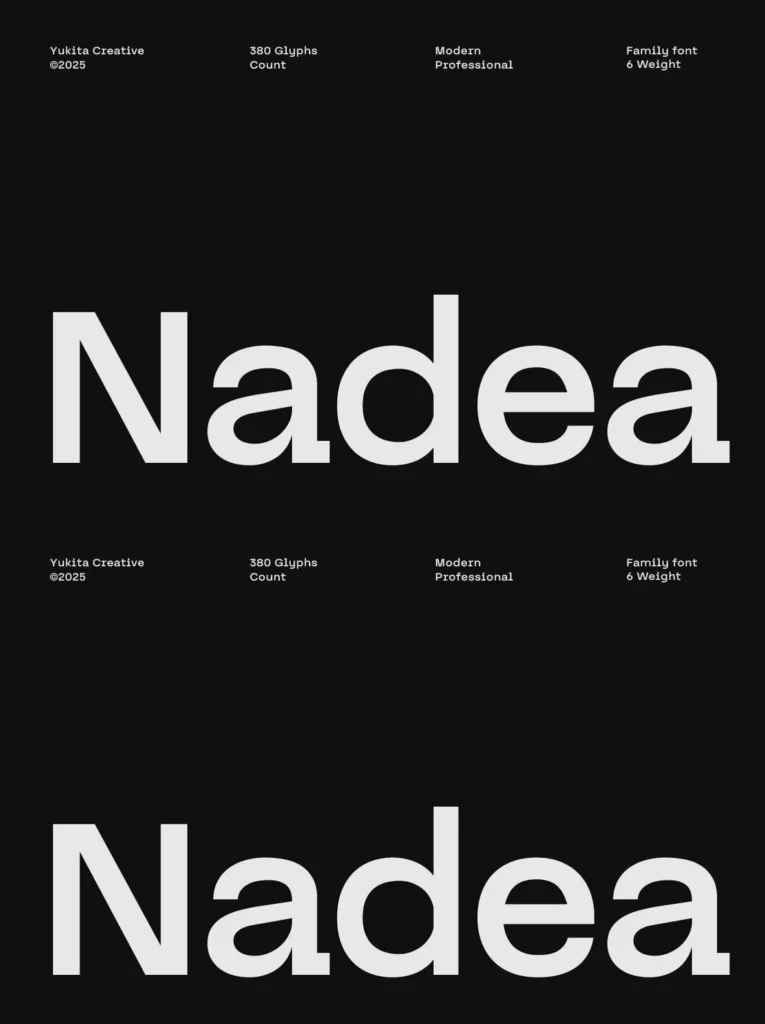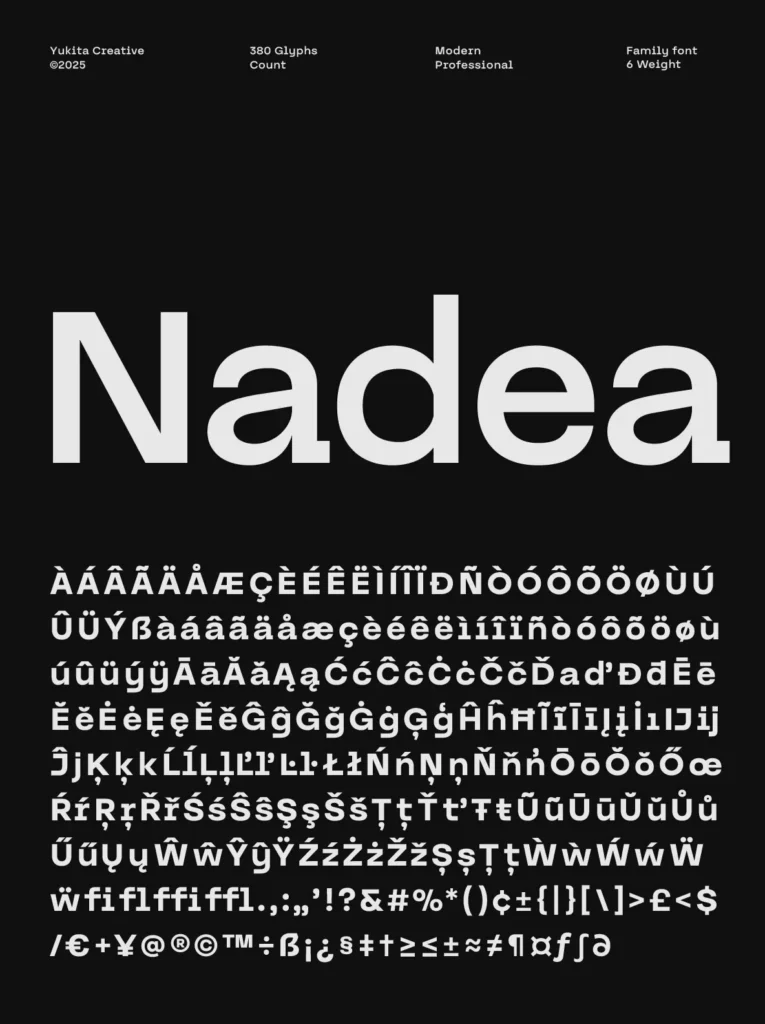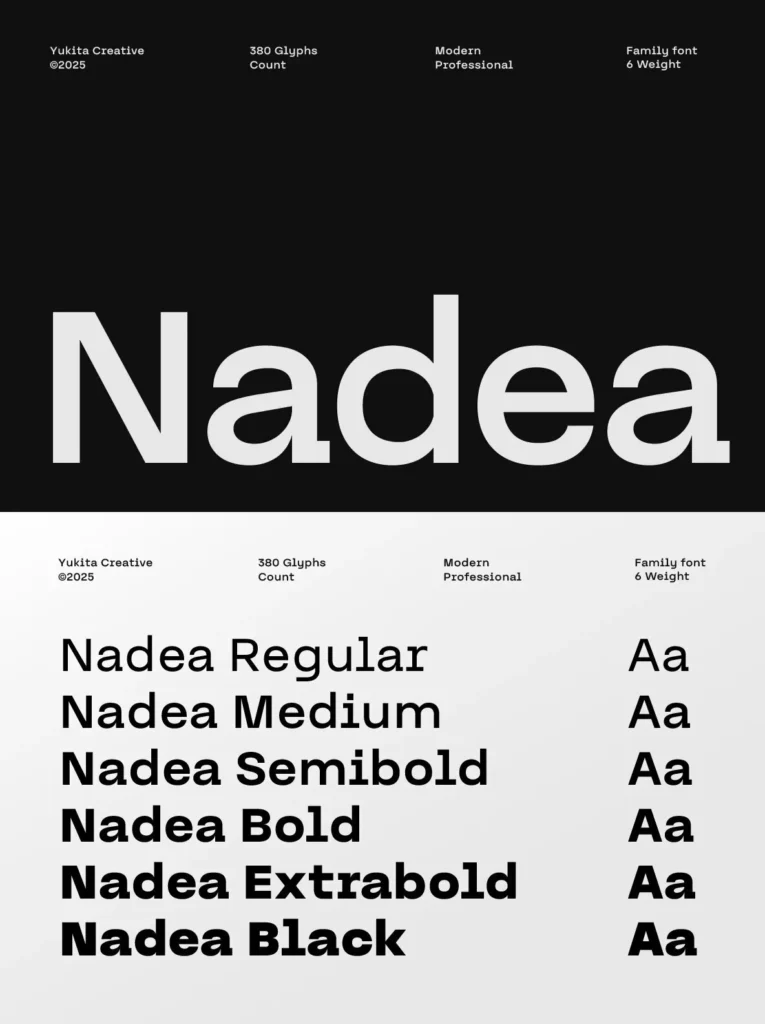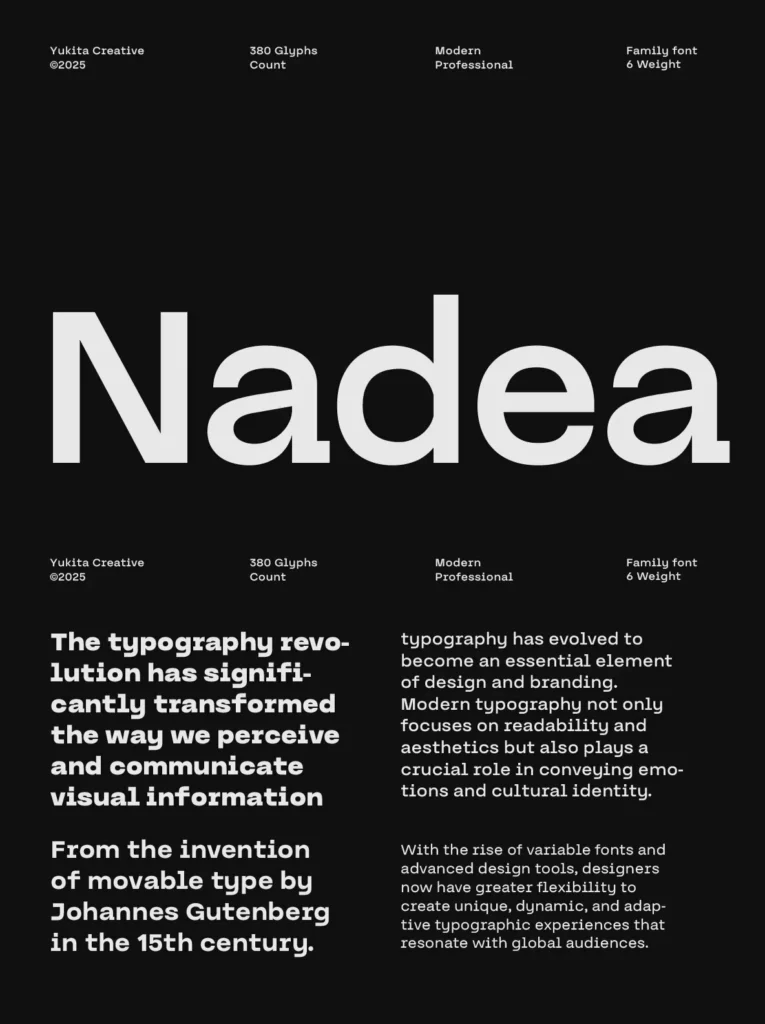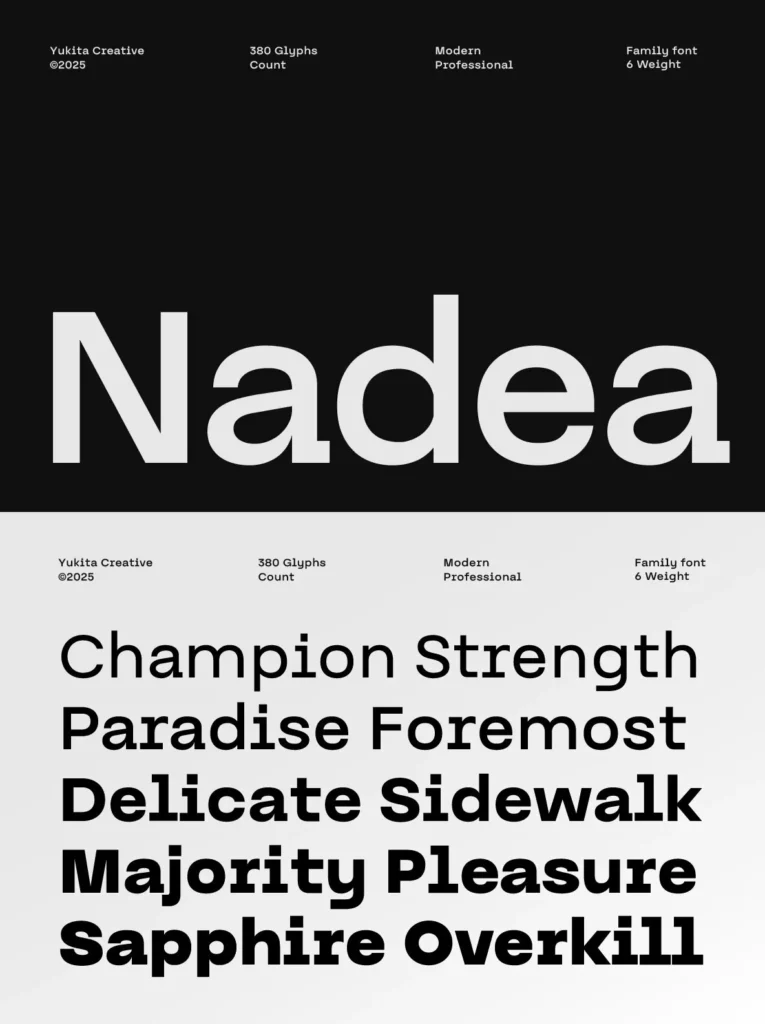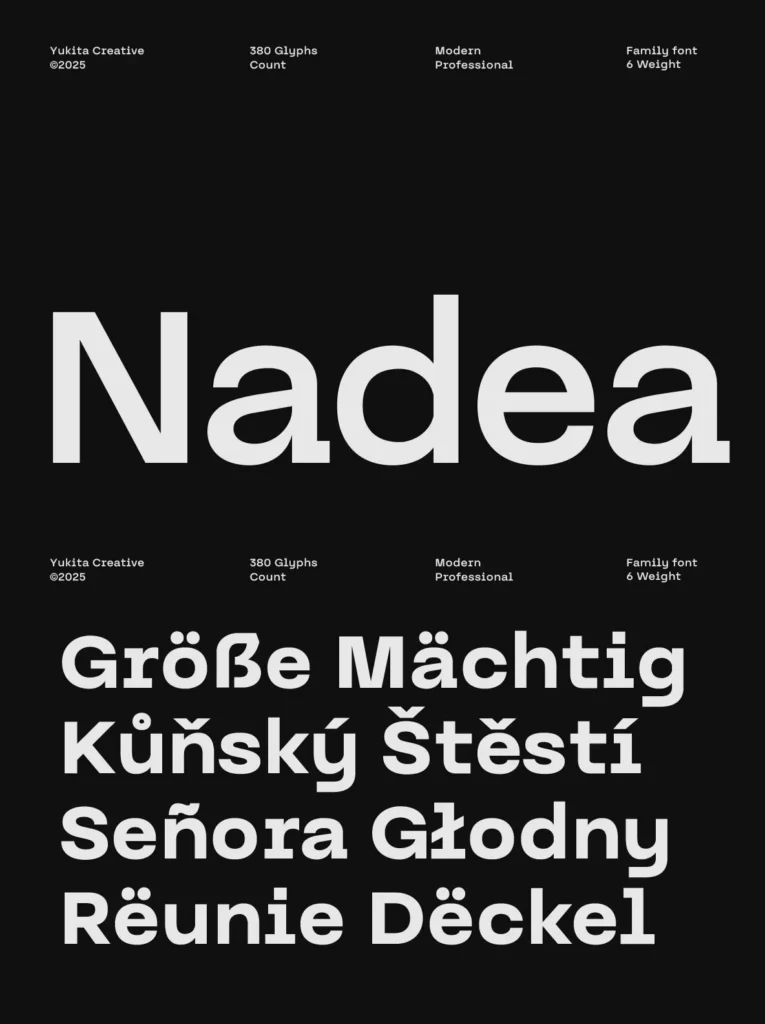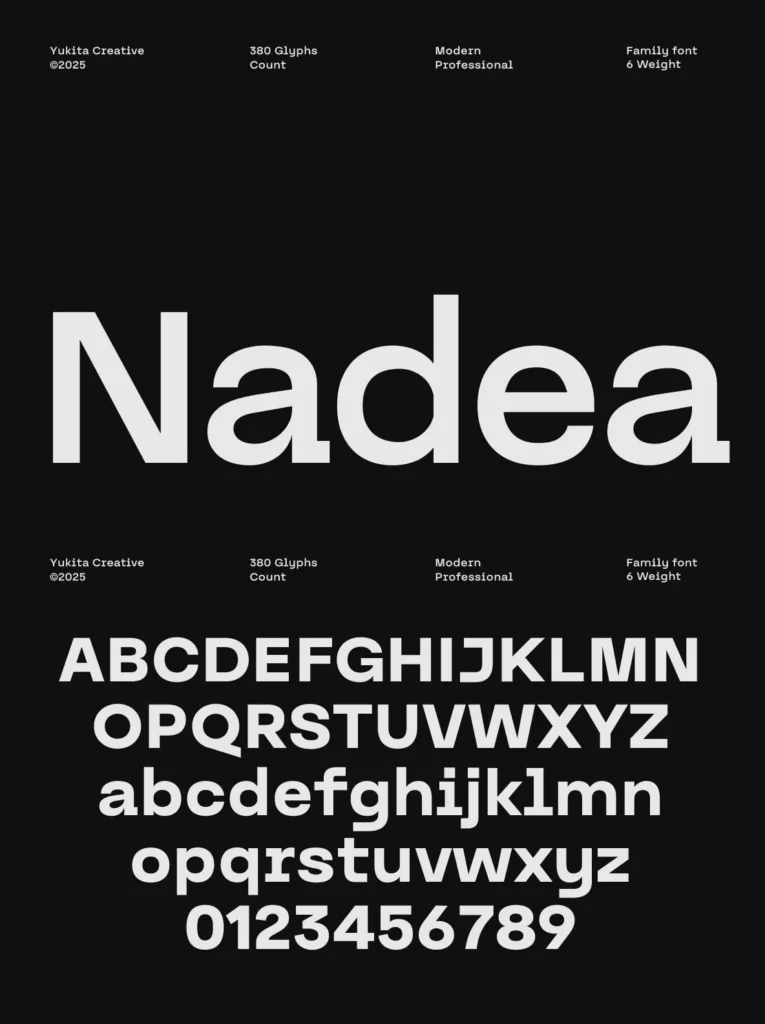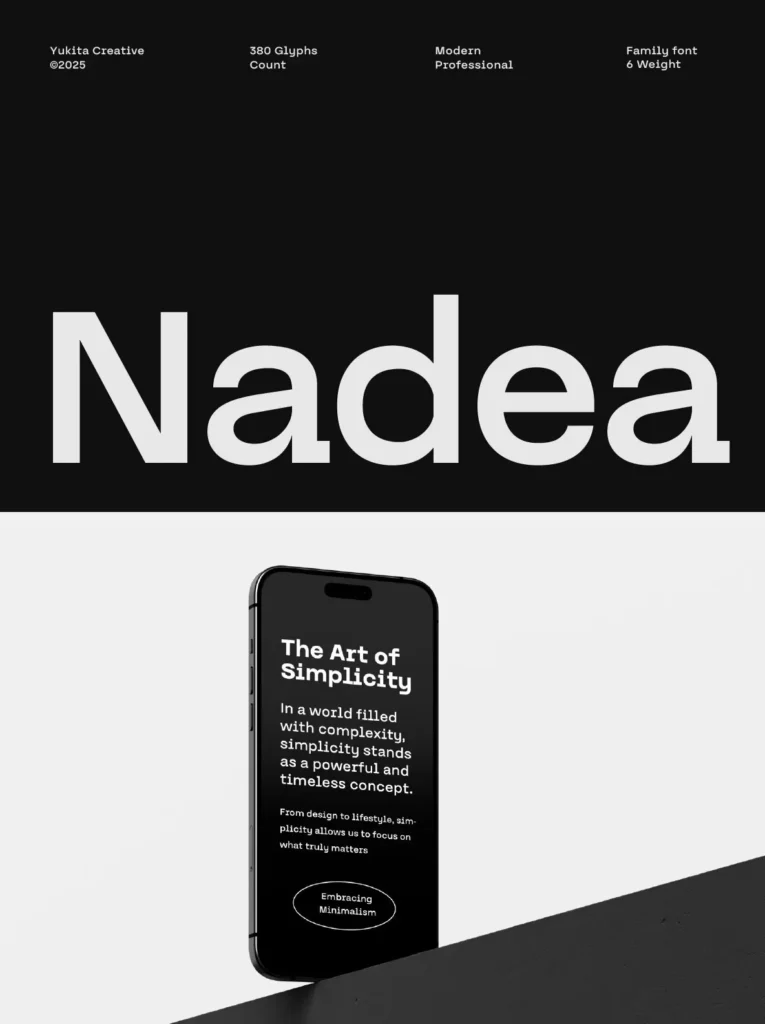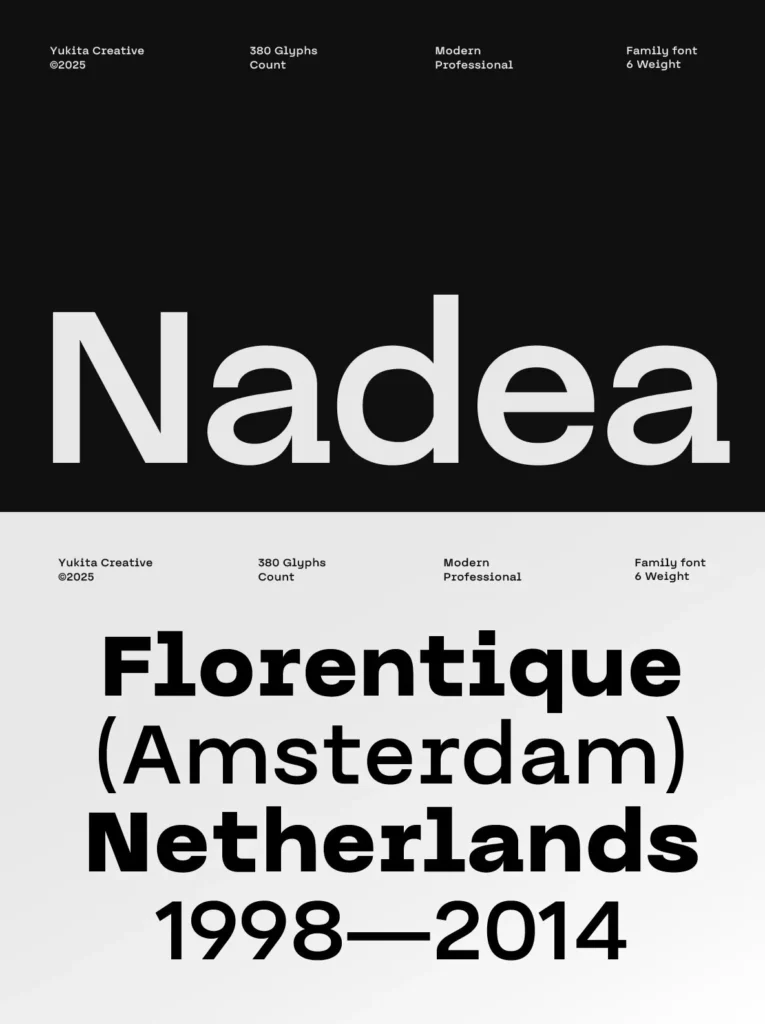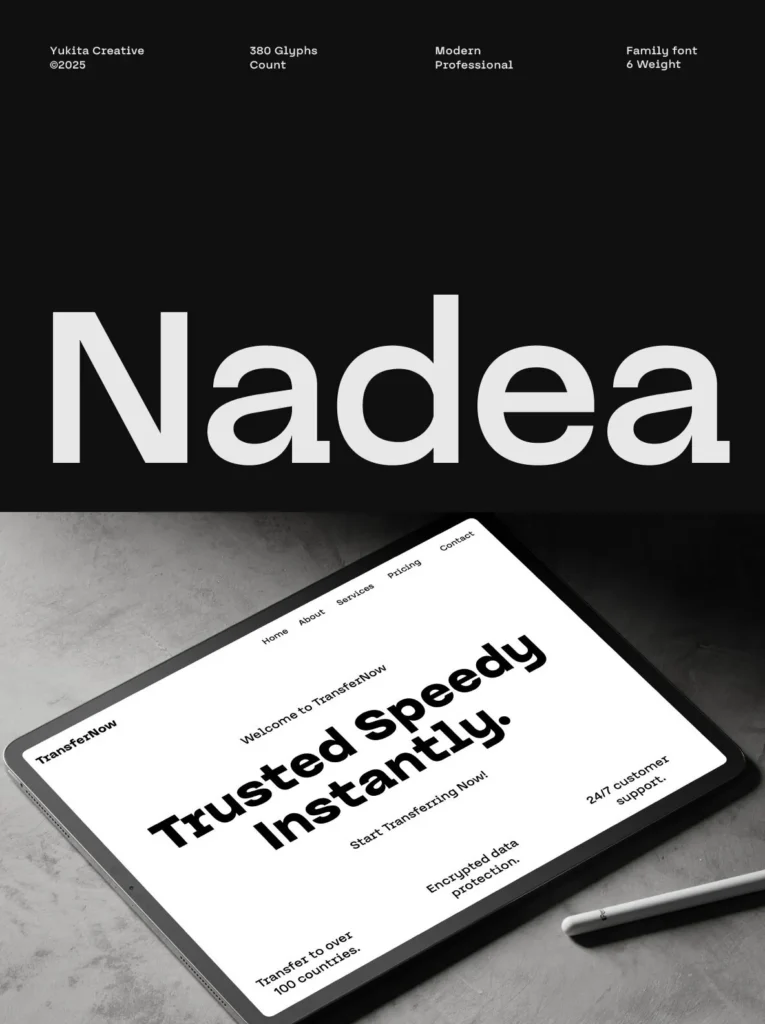
Nadea Sans Serif: Modern Minimalism for Your Design Needs
Nadea Sans Serif offers a seamless blend of modernity and elegance. Designed with clean lines and harmonious proportions, this typeface stands out with its six versatile weights: Regular, Medium, Semi-Bold, Bold, ExtraBold, and Black. Ideal for branding, logos, editorial layouts, posters, and web design, Nadea provides the clarity and precision needed in today’s creative projects.
Each letter in Nadea Sans Serif is meticulously designed to deliver both functionality and aesthetic appeal. It excels in creating striking headlines and maintaining readability in body text. For projects aiming to establish a modern brand identity, sleek typographic layouts, or polished UI/UX interfaces, Nadea Sans Serif embodies flexibility and professional quality with every character.